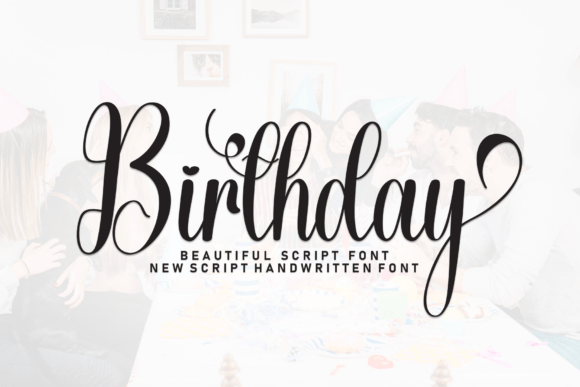
The Birth of Elegance: Unveiling the Birthday Font
This stylish script font exudes elegance and contemporary charm, featuring graceful strokes, fluid curves, and carefully crafted letterforms. It’s like capturing the beauty of hand-drawn calligraphy with a modern twist. In this article, I’ll share my experience with the Birthday font, its features, and how to make the most of it in your designs.
• ✨ Elegant and sophisticated design that’s perfect for high-end projects
• ✅ Highly versatile and adaptable to various design contexts, from logos to social media graphics
• 💫 Beautifully crafted letterforms with a natural flow and polished details
• 🎨 Excellent for creating eye-catching headlines, titles, and emphasis text
While the Birthday font is exceptional, there are a few minor quirks to be aware of:
• ⚠️ Some users may find the font a bit too ornate for very small text sizes or body text
• 🤔 Limited availability of condensed or italic styles, which might limit its use in certain design contexts
The Designer Inspiration Behind Birthday Font
The Birthday font was designed with the intention of capturing the essence of hand-drawn calligraphy in a digital format. The designer aimed to create a font that would exude elegance and sophistication while still feeling approachable and modern. The result is a beautiful, versatile font that’s perfect for a wide range of design applications.
Q: What makes the Birthday font unique?
A: The Birthday font’s unique blend of elegance, sophistication, and modern charm sets it apart from other script fonts.
Q: Is the Birthday font suitable for body text?
A: While the Birthday font is exceptional for headlines and emphasis text, it may not be the best choice for body text due to its ornate design.